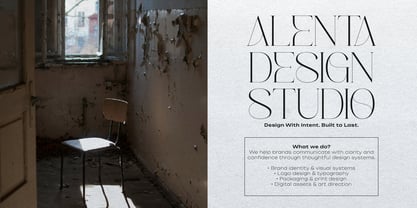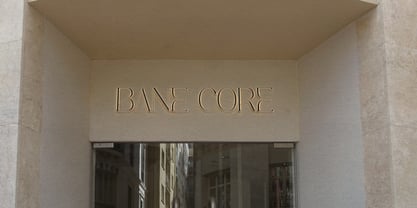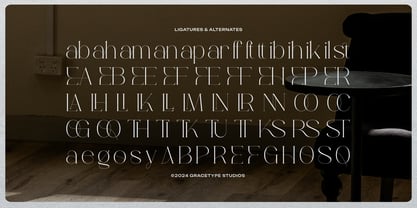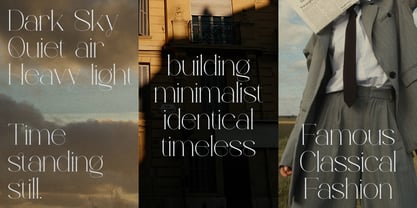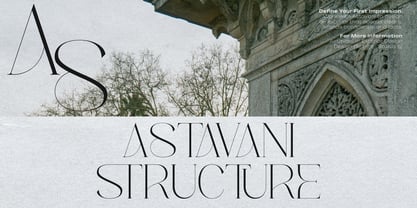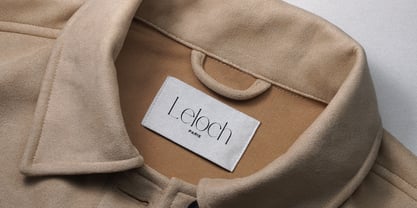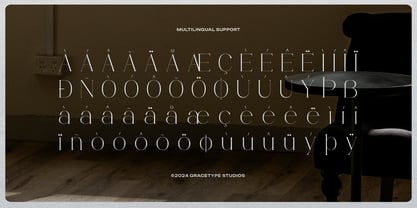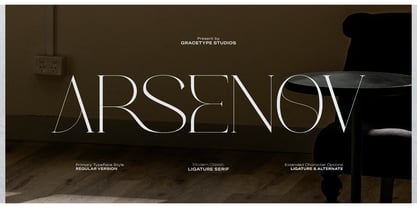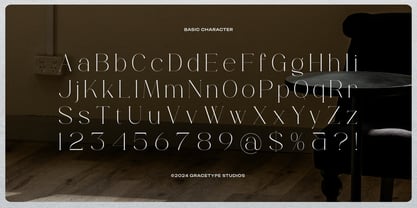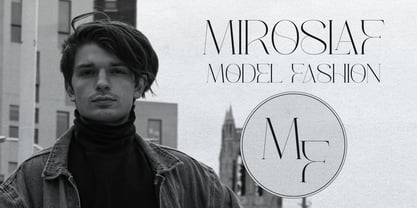
Arsenov
by Tini Fitriani
Arsenov | Modern Classic, from Gracetypestudio, suitable for any projects such as: logos, branding projects, homeware designs, product packaging, mugs, quotes, posters, shopping bags, t-shirts, book covers, name card, invitation cards, greeting cards, label, photography, watermark, special events, and all your other lovely projects that need a Serif taste.